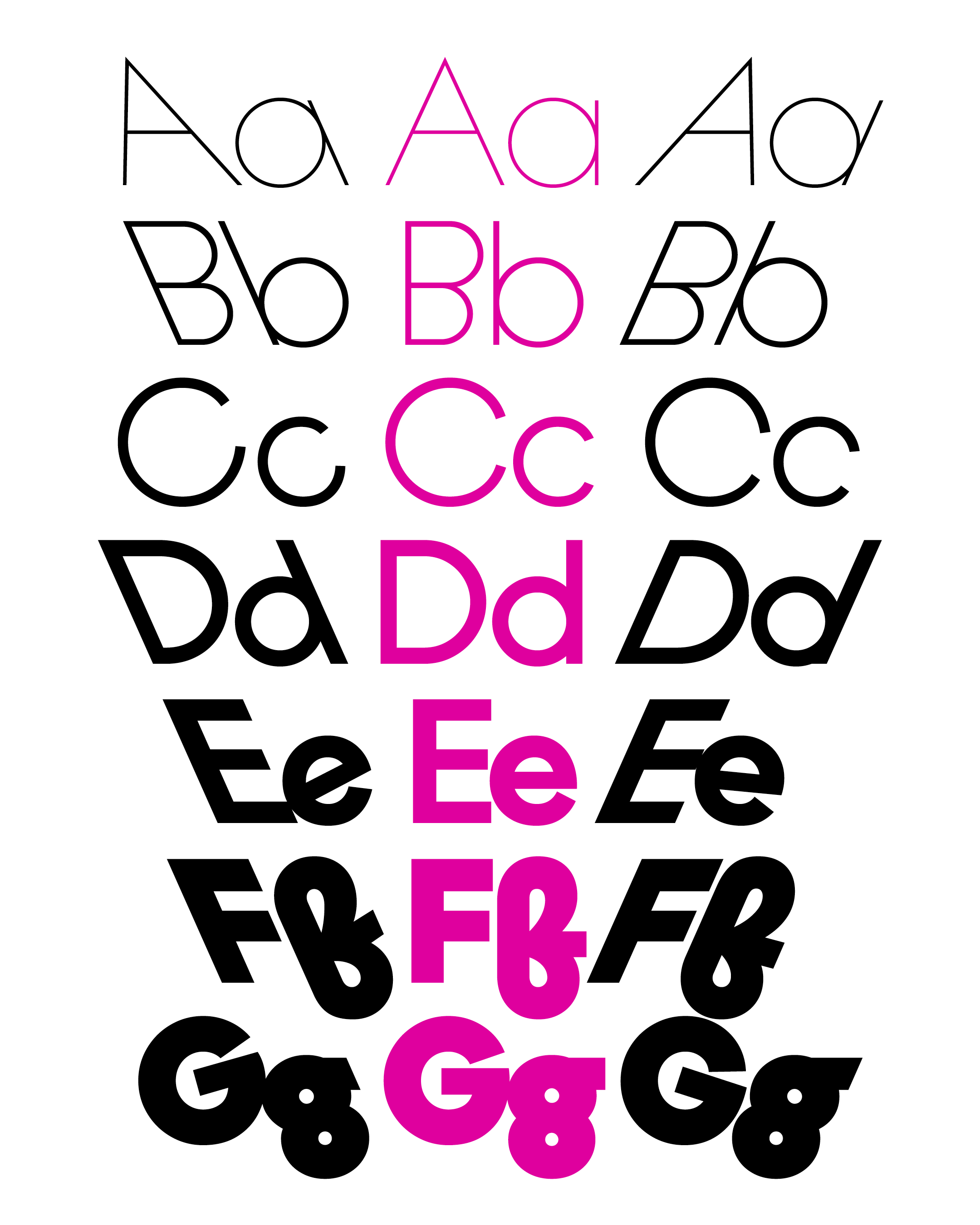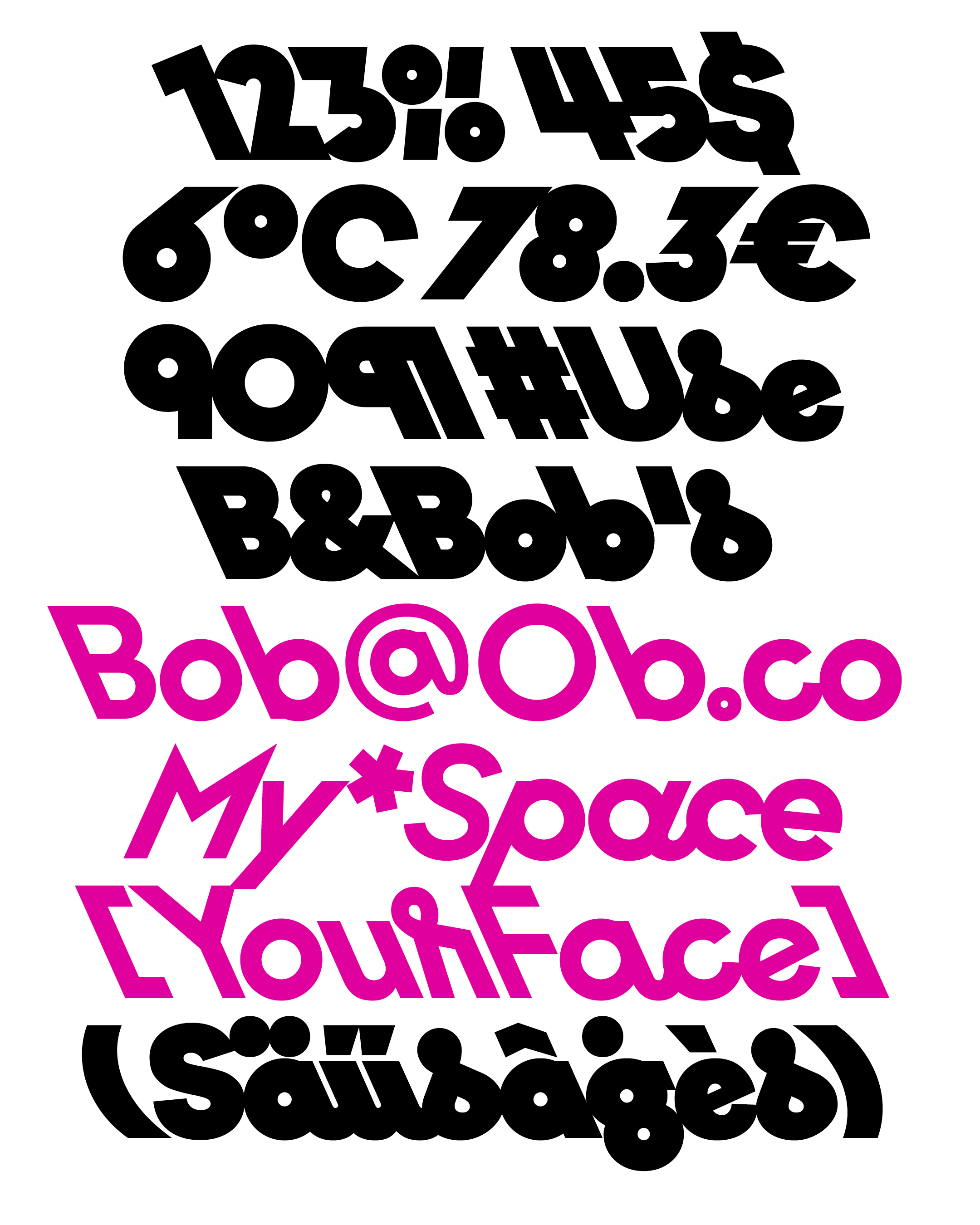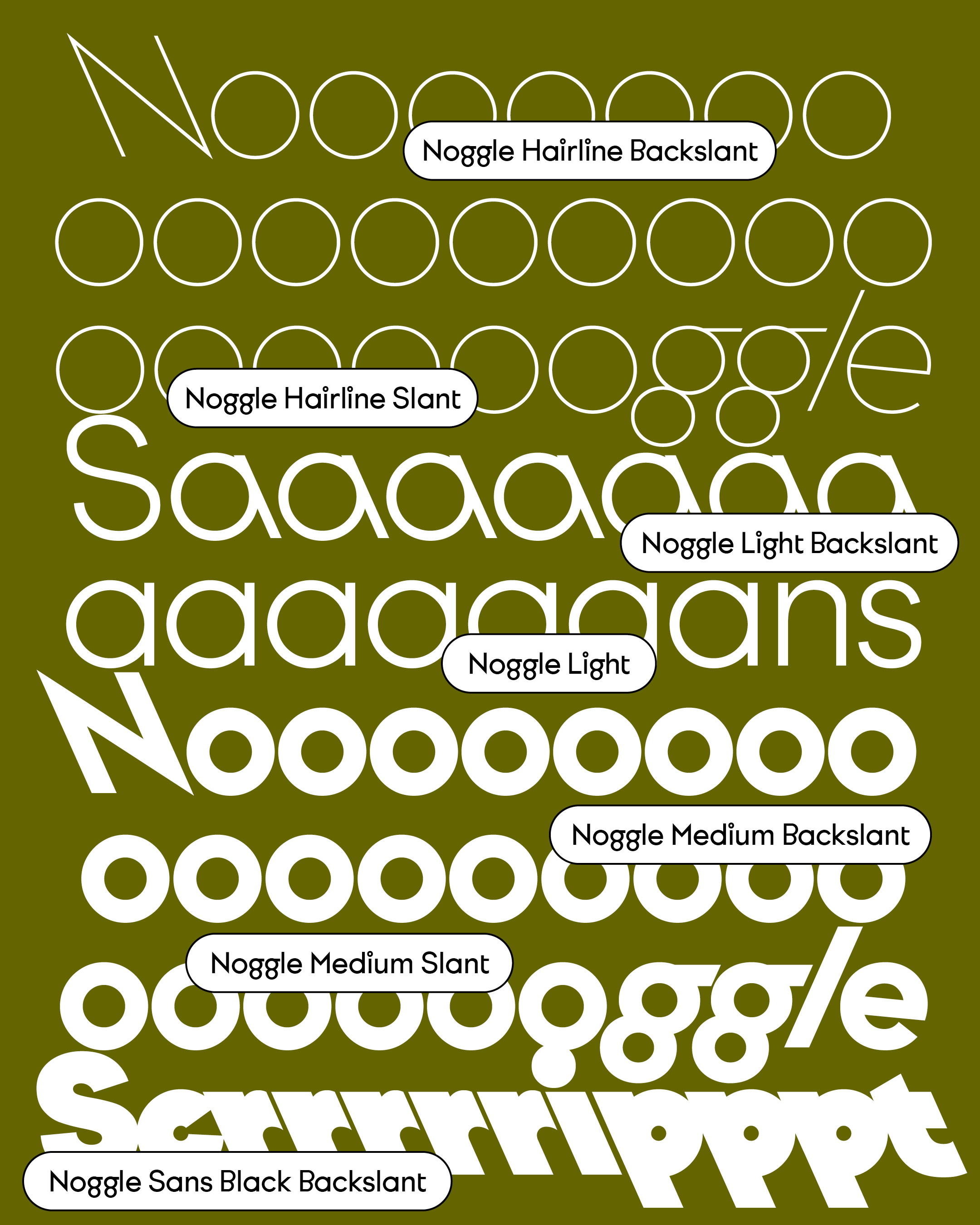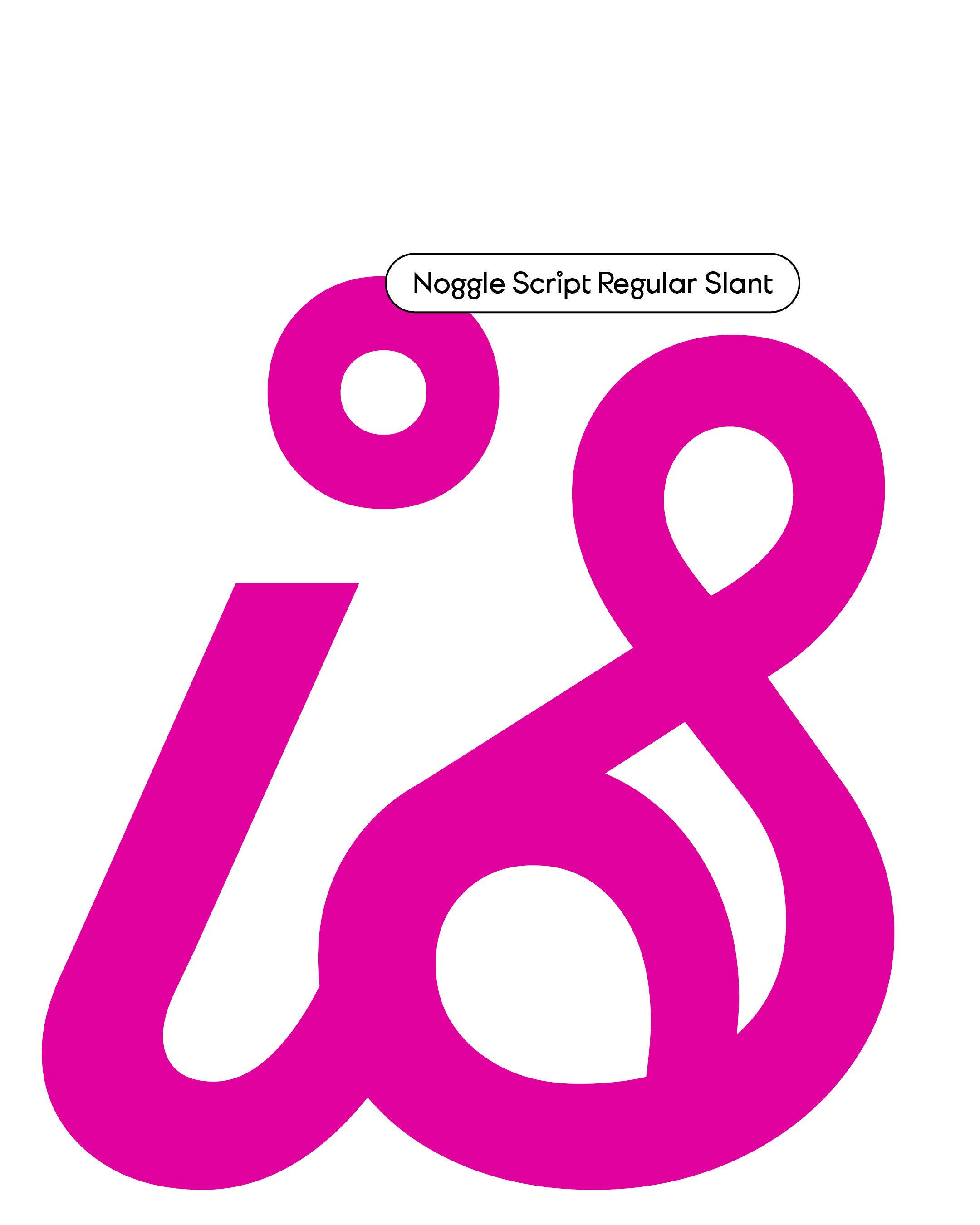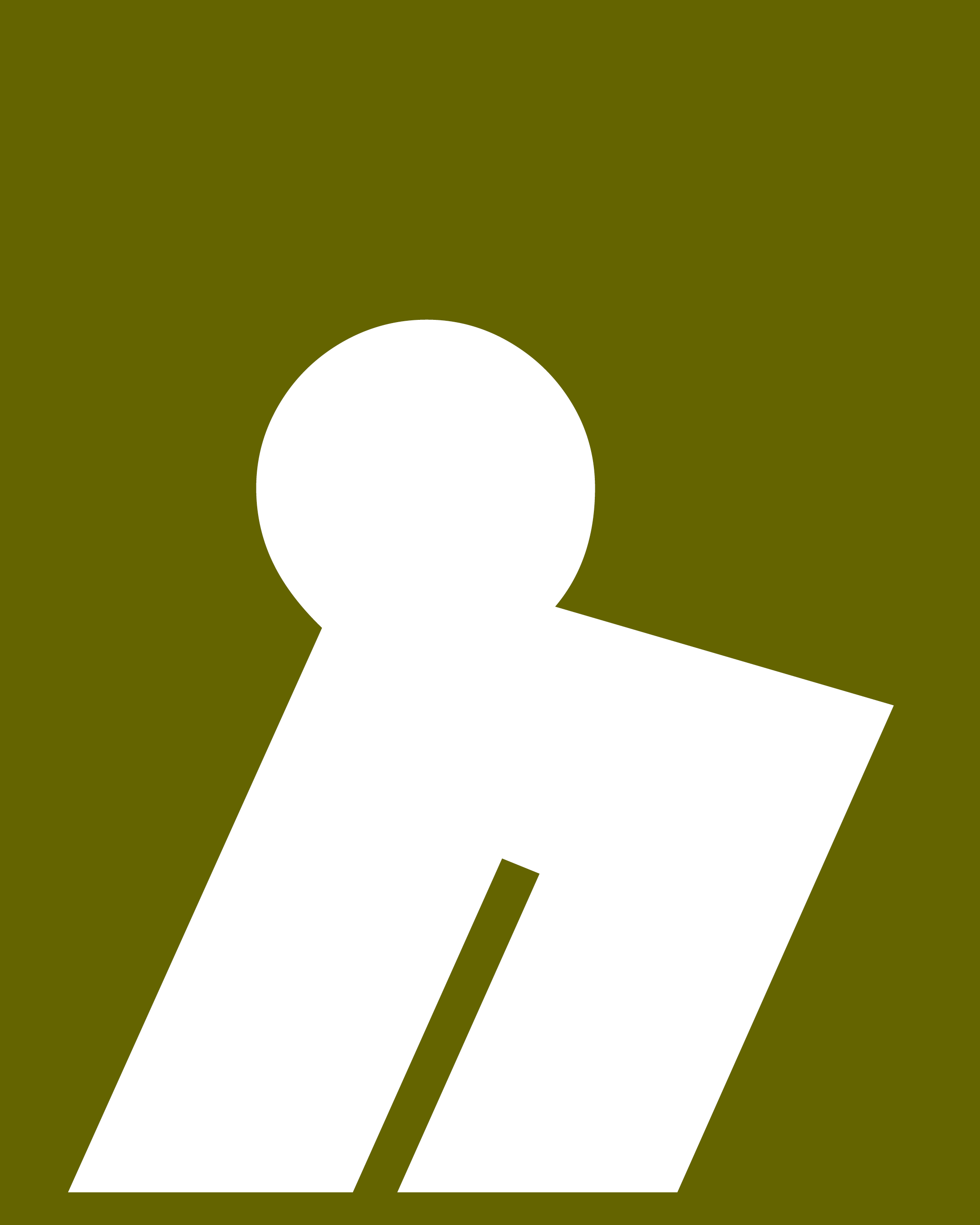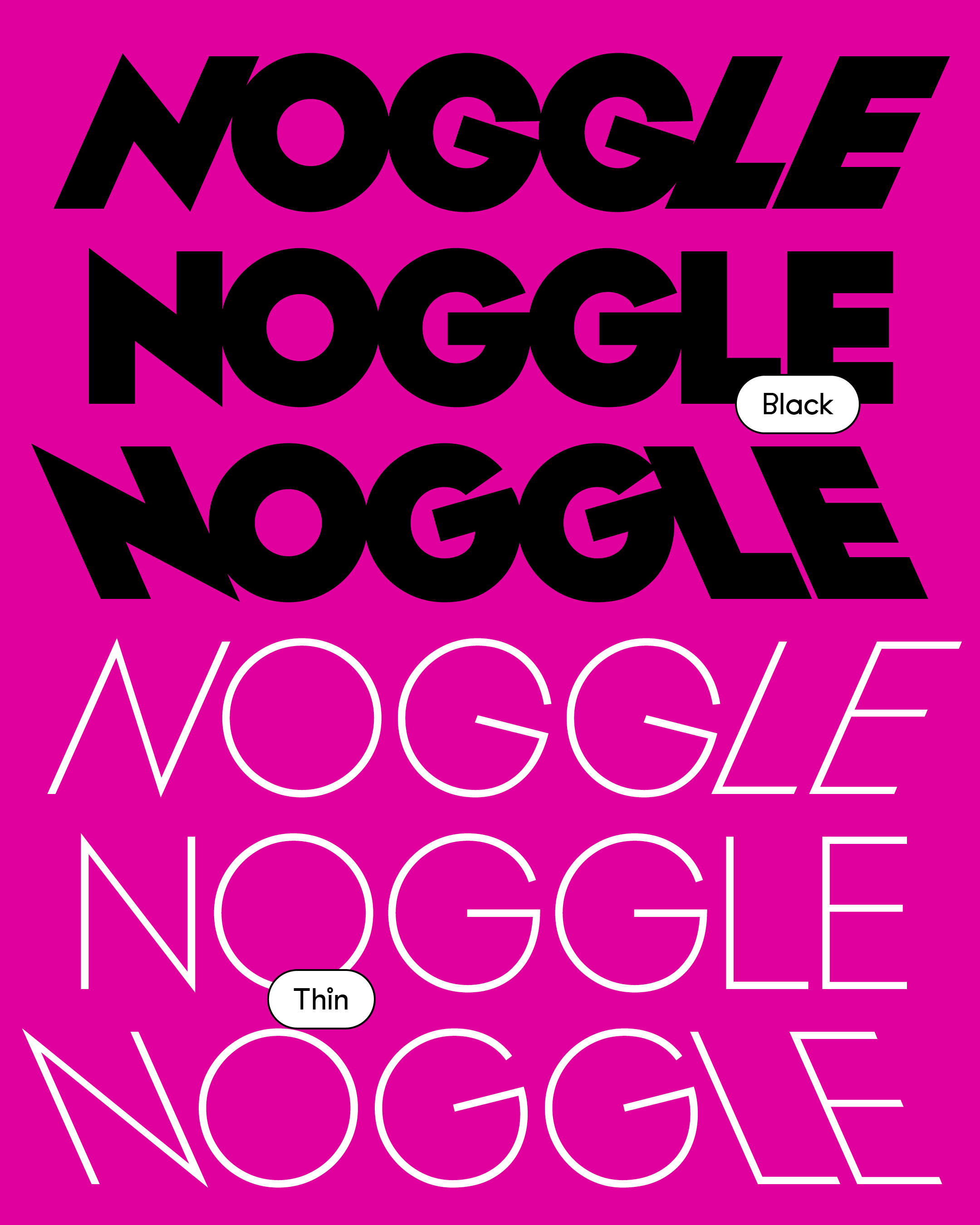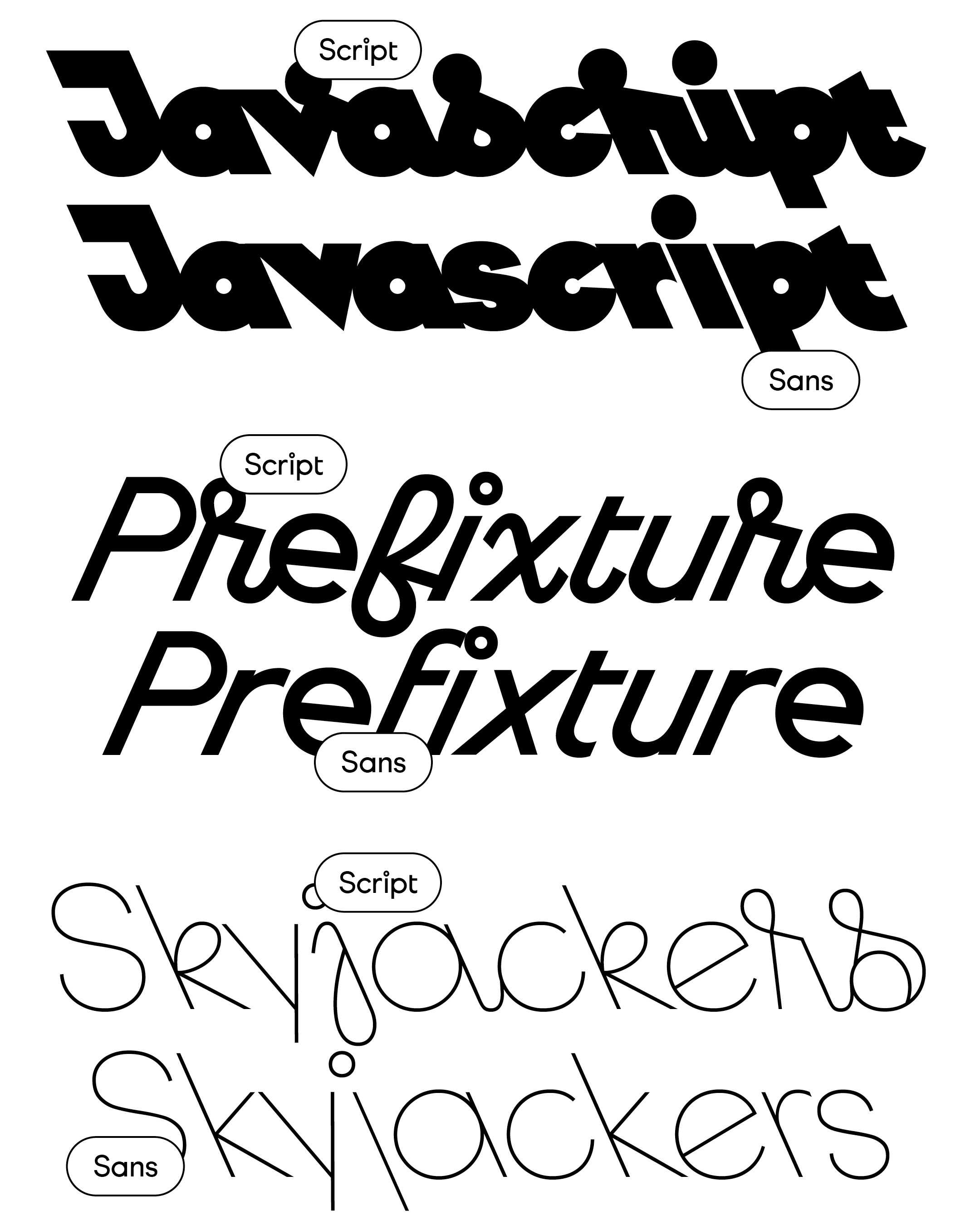
LH Noggle Sans family
by Léon Hugues
Noggle
Family Overview
LH Noggle Script — Backslant
LH Noggle Script — Upright
LH Noggle Script — Slant
LH Noggle Sans – Backslant
LH Noggle Sans – Upright
LH Noggle Sans – Slant
Samples
Are you more of a Scripty Noggler?
Or would you rather pick the sturdy sans?
Noggle was invented when speed first outran comfort, when dust, wind, smoke, and sky began insisting on their place in the human eye. Before it became a symbol of flight, racing, or laboratory precision, it was a simple shield: a practical little window strapped to the face, made for seeing clearly while the world rushed in. It belongs to that charming family of inventions born from inconvenience, the same lineage as umbrellas, gloves, and the teacup lid. A modest answer to a very human problem: how to keep looking forward when the air itself turns against you. And yet Noggle quickly became more than protection. It gave the face a certain mystery. A pilot in Noggle looked heroic. A scientist looked dangerous. A swimmer looked aerodynamic. Put it on, and suddenly you are not just prepared, you are in pursuit. Of speed, of weather, of some improbable experiment. An object invented to protect the eyes, and somehow ended up sharpening the imagination.
Noggle was born from irritation and ambition in equal measure, from the simple frustration of wanting to move faster than the world would comfortably allow. Wind stung, dust scratched, smoke blurred the view, and so Noggle arrived: a small act of defiance strapped neatly across the face. At first, it was purely practical. A tool for keeping vision intact while everything else rushed, roared, or exploded around it. But practicality has a habit of becoming style, and Noggle soon acquired a life beyond function. It turned ordinary faces into characters. In Noggle, a mechanic looked ingenious. A mountaineer looked unreasonably brave. A chemist looked one mistake away from revelation. It did not simply protect the eyes, it suggested intent. Some objects solve problems. Noggle solved one, then quietly became a costume for curiosity.